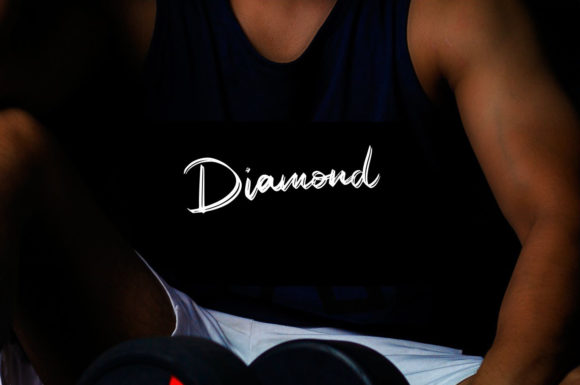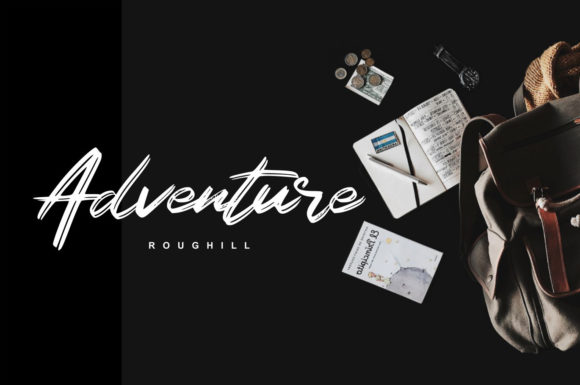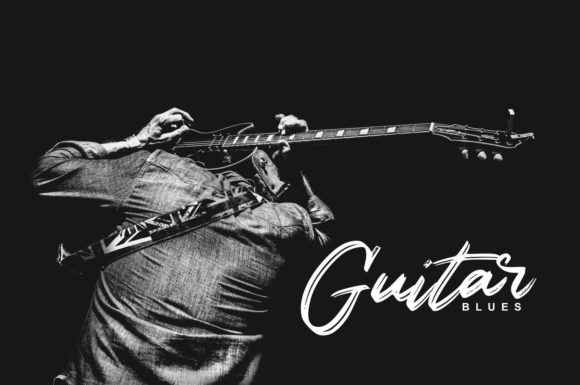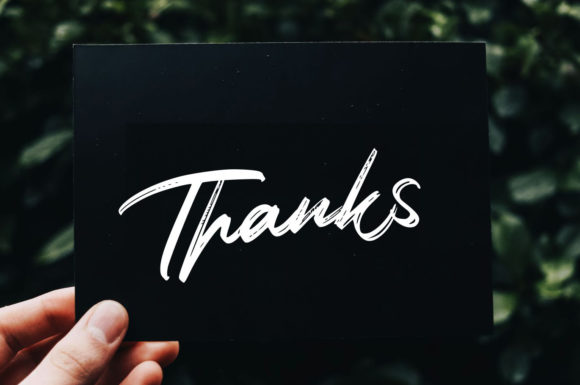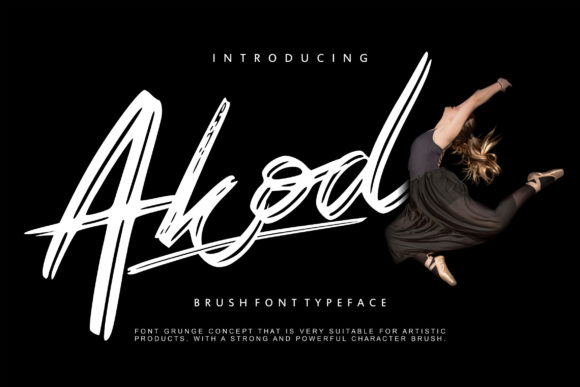
The Akod Font: A Game-Changer for Your Designs
Have you ever been in the middle of a design project, and suddenly, you just can’t seem to find the right font? I know I have. It was a few months ago when I was working on a branding project for a client who wanted a unique, elegant, and eye-catching font. After hours of searching, I stumbled upon the Akod font, and it completely transformed my design. In this article, I’ll share my experience with the Akod font, its features, and how to make the most of it in your designs.
What is Akod Font?
Akod is a calligraphy style script font that boasts a unique character. This font is perfect for designers, crafters, and creative hobbyists looking to make their designs stand out from the crowd! With its elegant and flowing lines, Akod adds a touch of sophistication to any project.
Here’s what I love about the Akod font:
- ✨ Elegant and sophisticated design
- ✅ Highly versatile and adaptable
- 💫 Unique character that sets it apart from other fonts
- 📚 Extensive range of OpenType features and glyphs
However, I did notice a few quirks:
- 🤔 Some characters may require manual kerning for optimal results
- ⚠️ Limited availability of certain stylistic alternates
The Designer Inspiration Behind Akod
Although I couldn’t find any information on the designer’s background, it’s clear that the creator of Akod was inspired by traditional calligraphy and modern typography. The result is a font that blends elegance with uniqueness, making it perfect for a wide range of design projects.
| What type of projects is Akod best suited for? | Akod is versatile and can be used for various projects, including branding, packaging, posters, and social media graphics. |
| Is Akod a difficult font to read? | Akod is a script font, and while it’s elegant, it may be challenging to read in large blocks of text. Use it for headlines, titles, or short paragraphs for optimal results. |